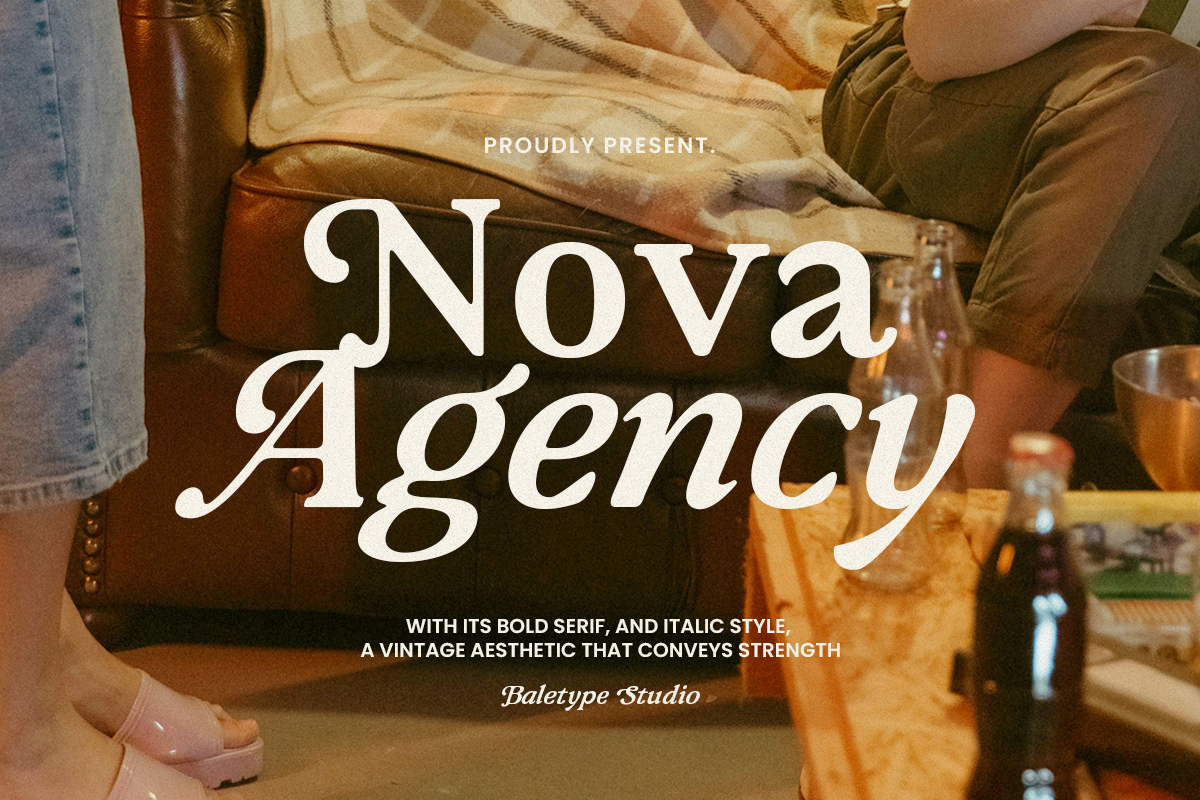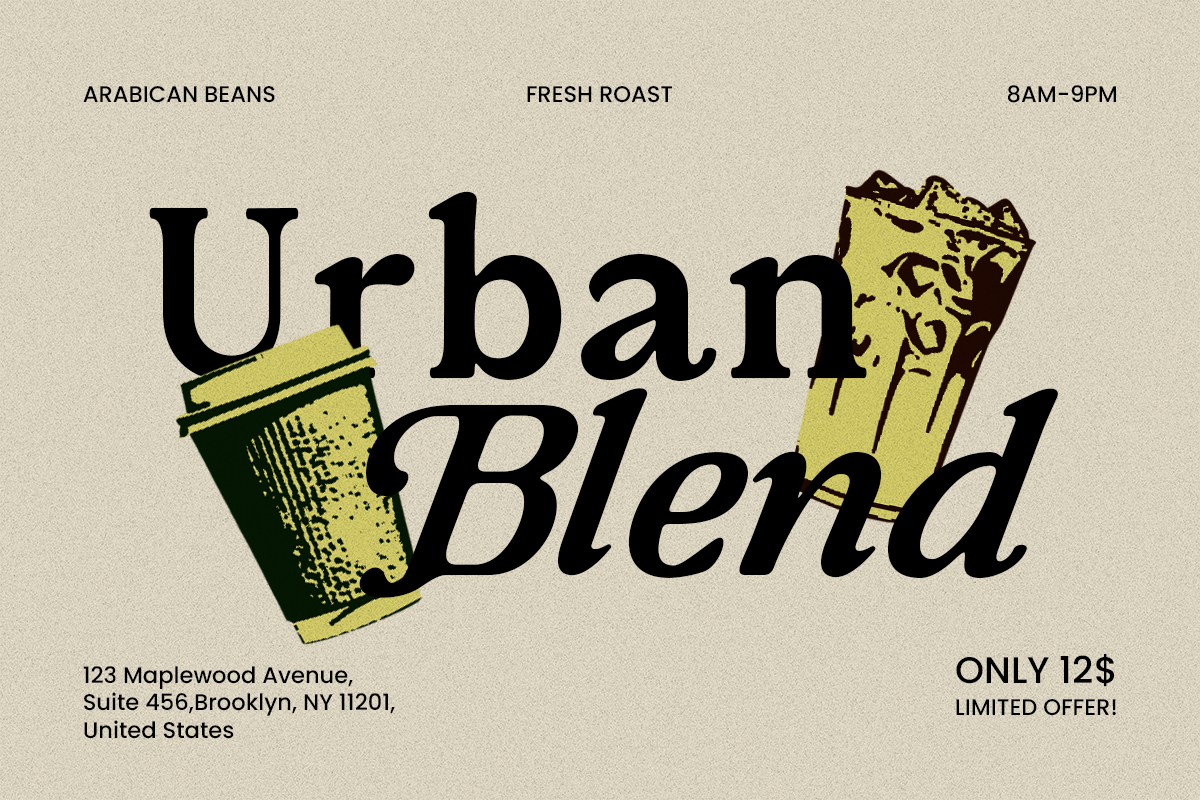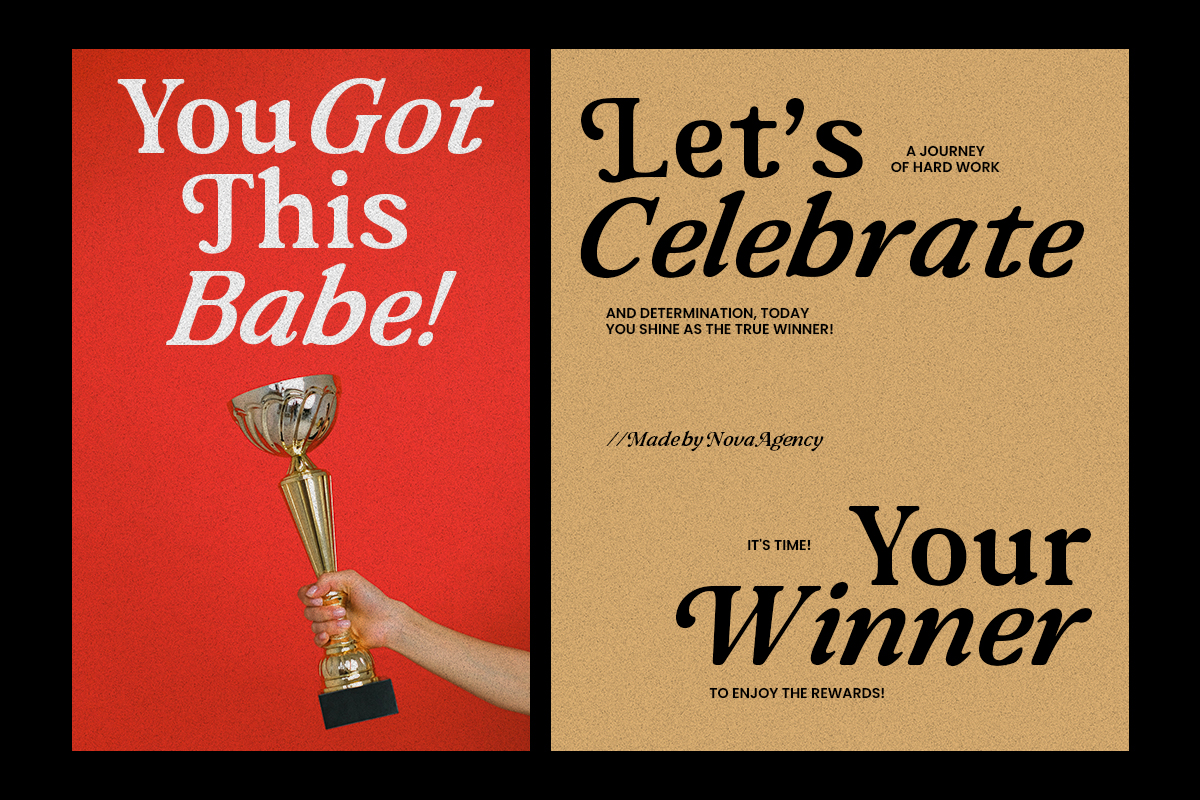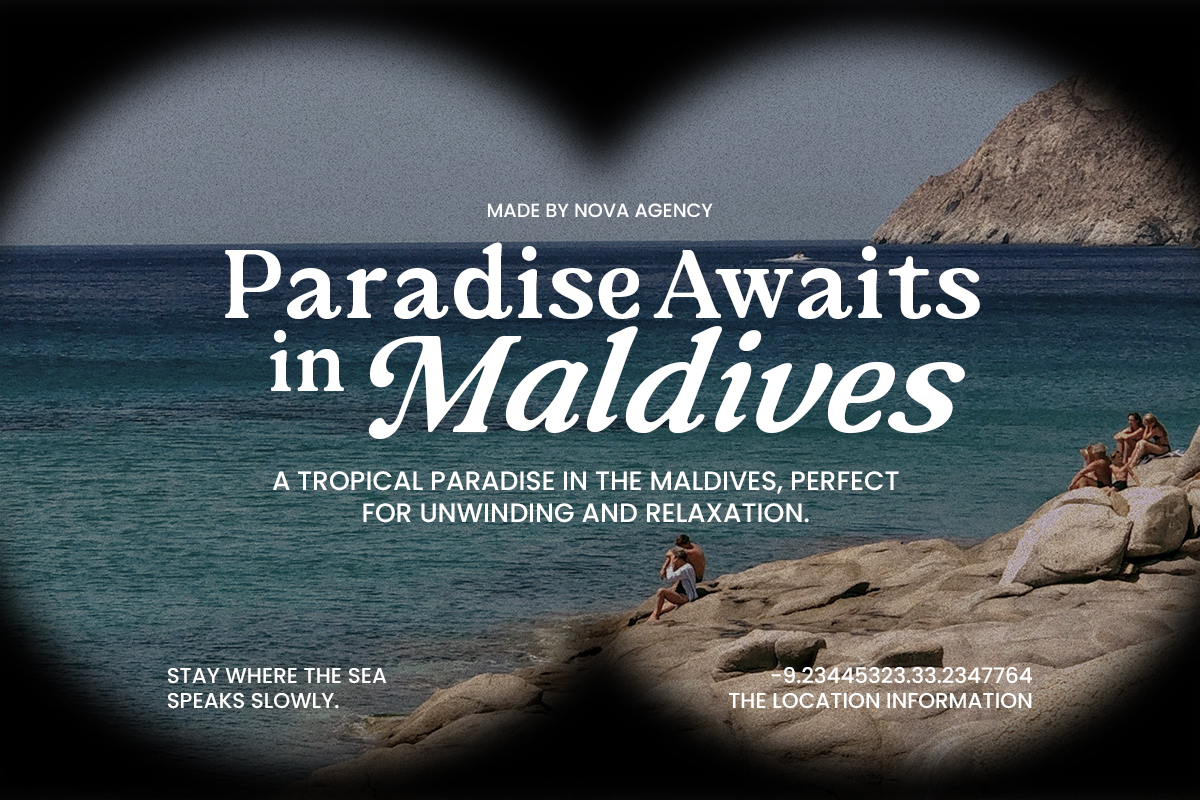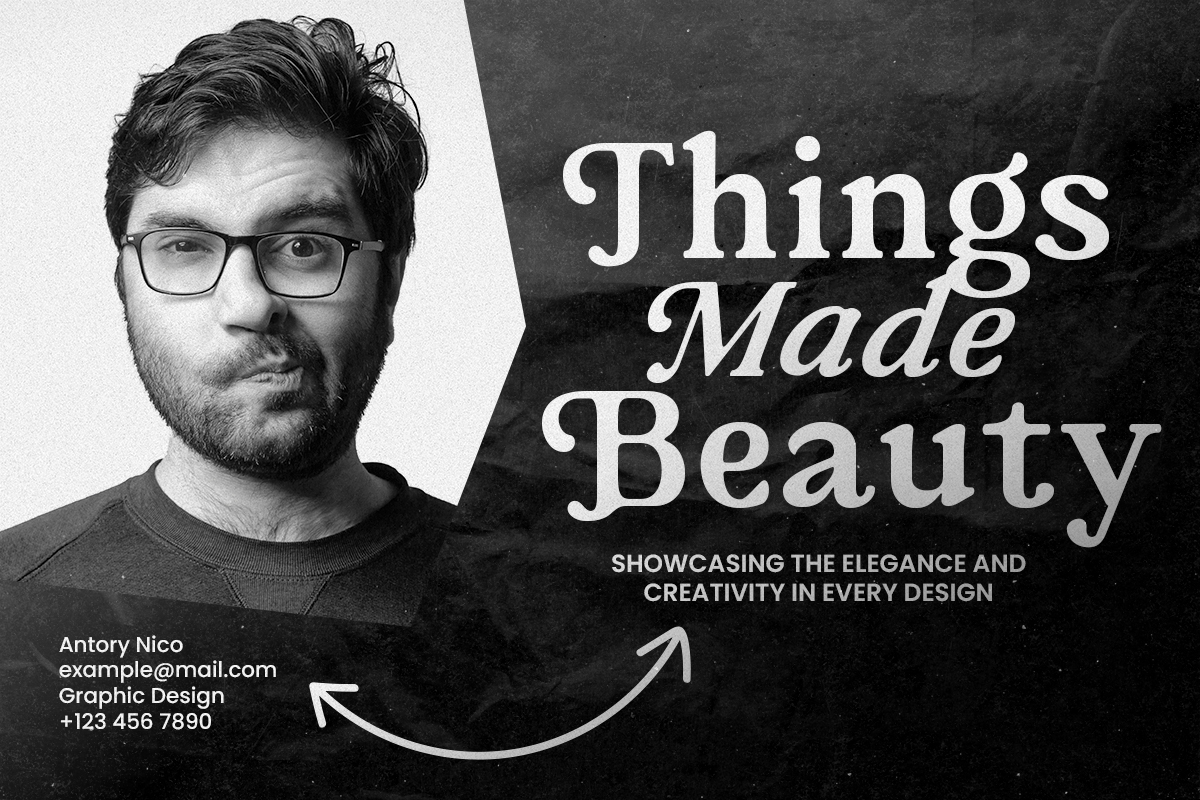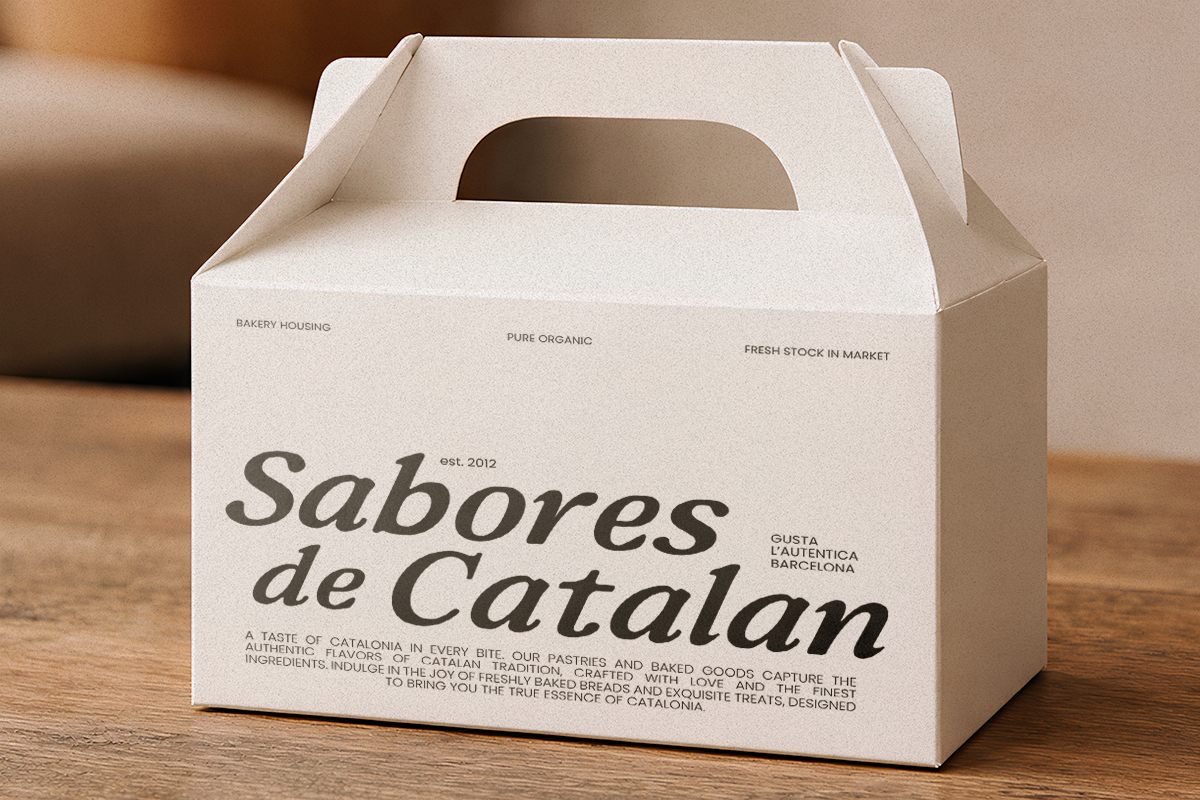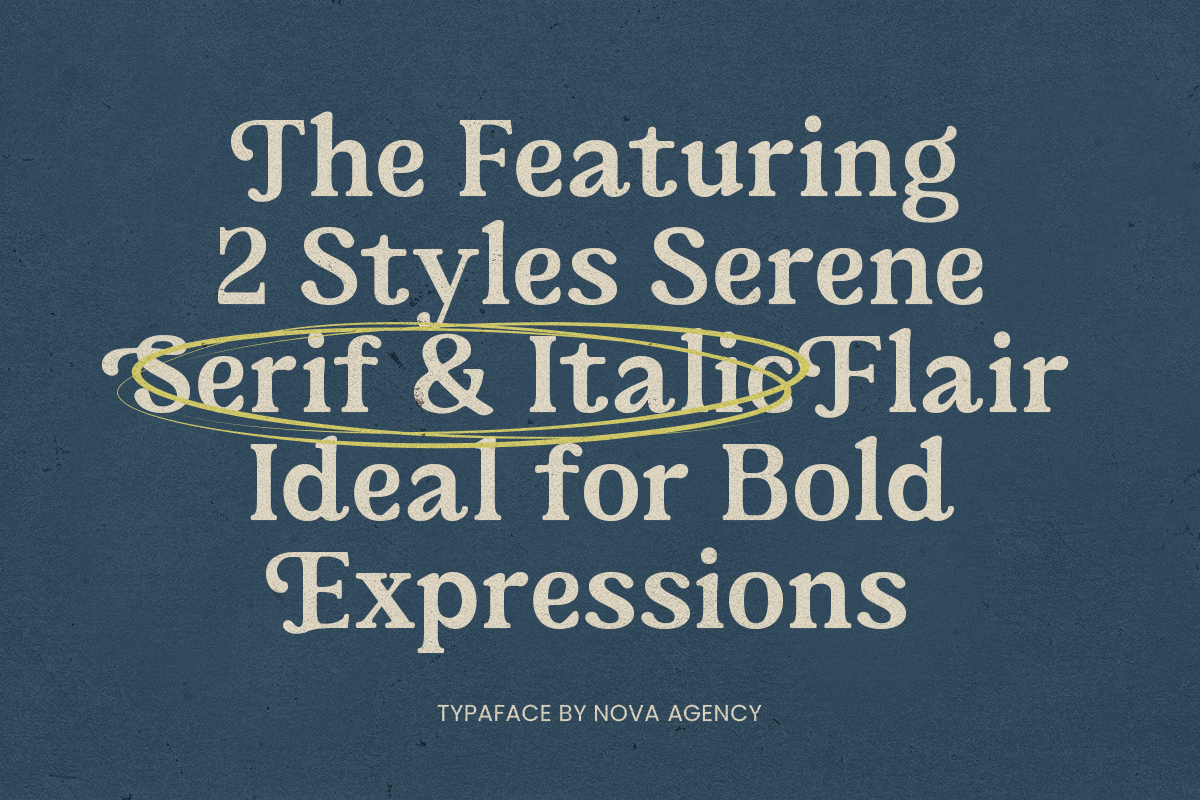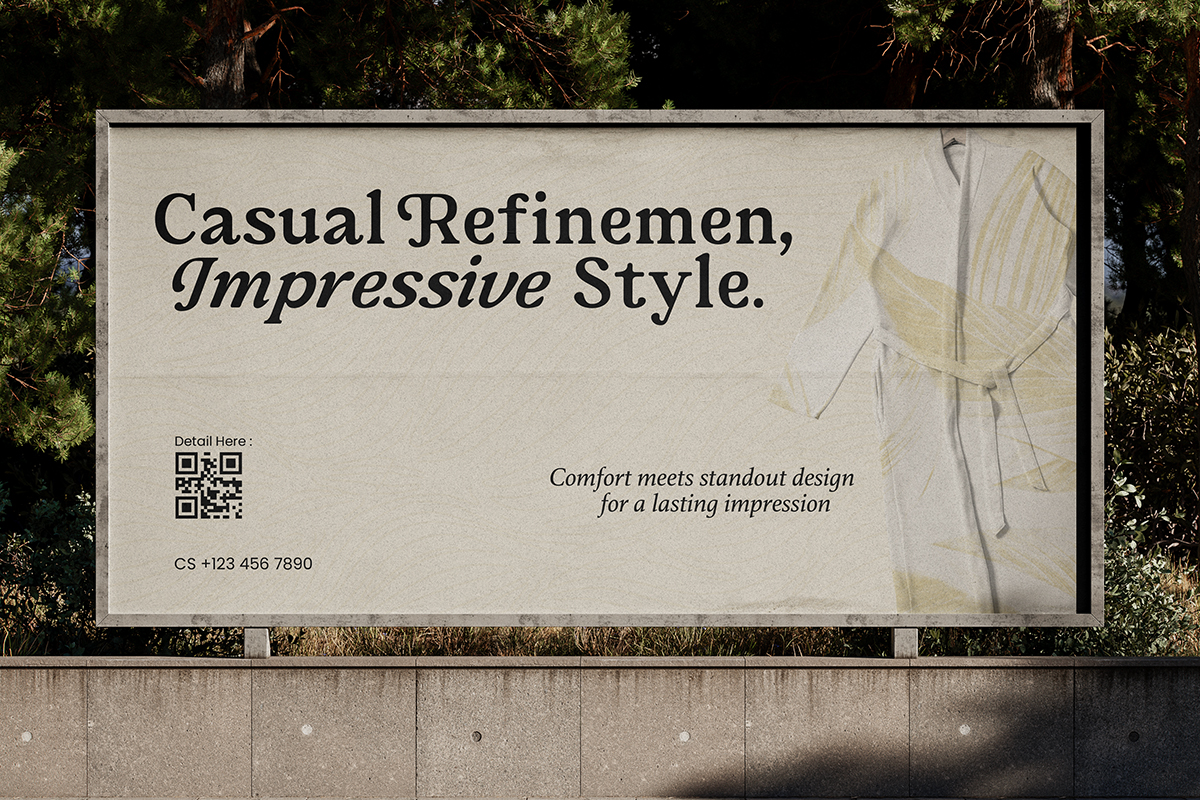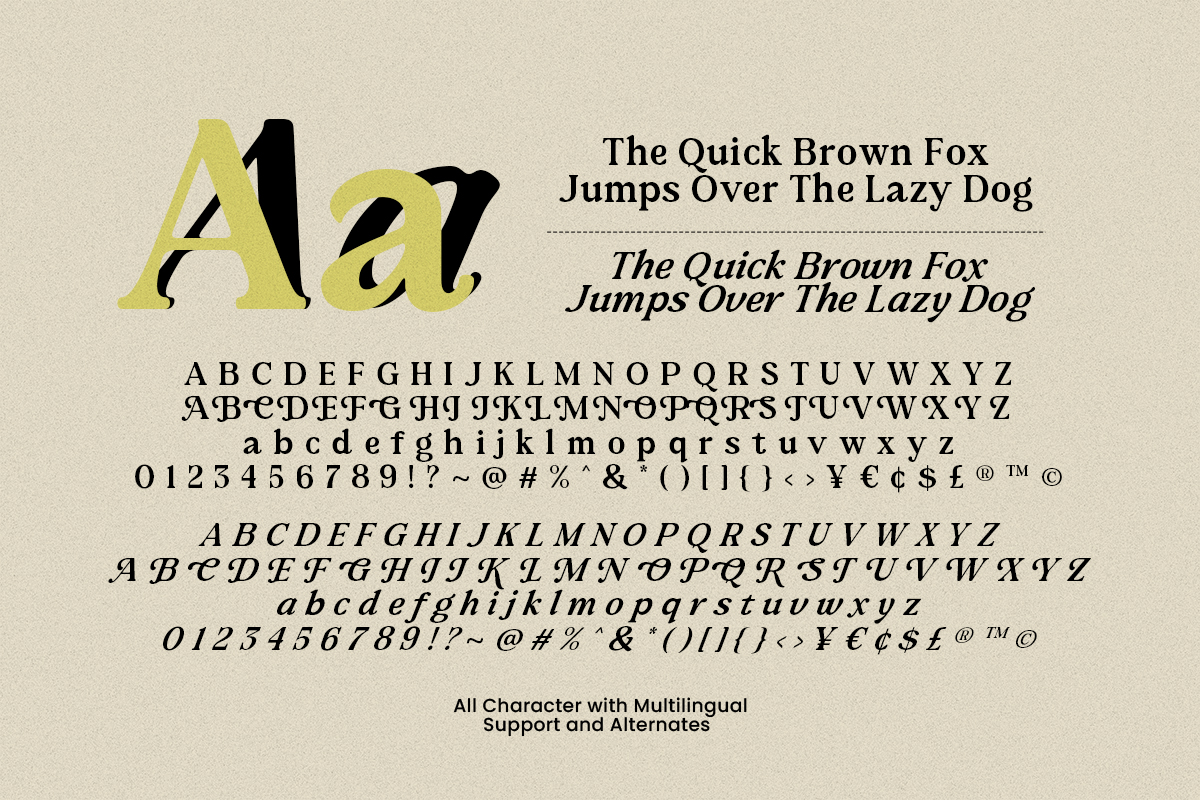
Nova Agency is a serif font family with retro and bold looks. With italic that will complement the regular style, you can use this font for any purposes such as branding, quote, wedding, logotype or any designs that need retro vibes. This font also contains an alternate each uppercase that will make your project looks stunning. Nova Agency also support multi language.
Nova Agency – Bold Retro Serif
Nova Agency is a serif font family with retro and bold looks.